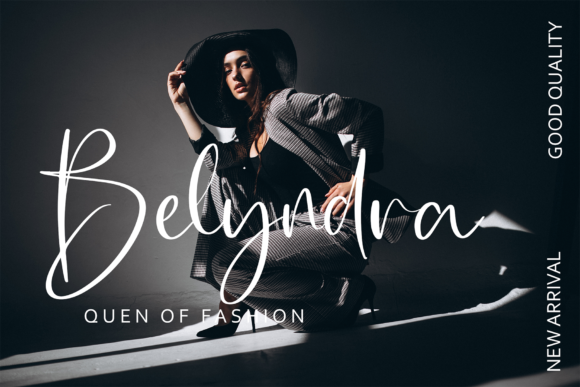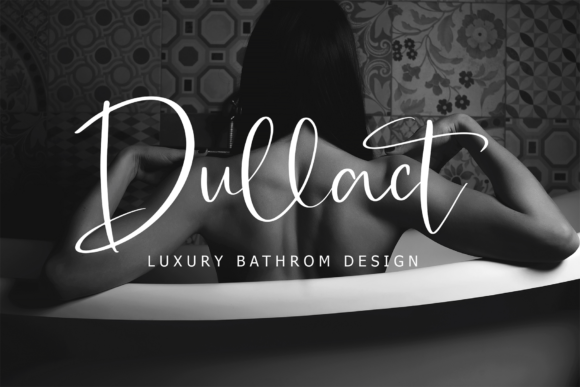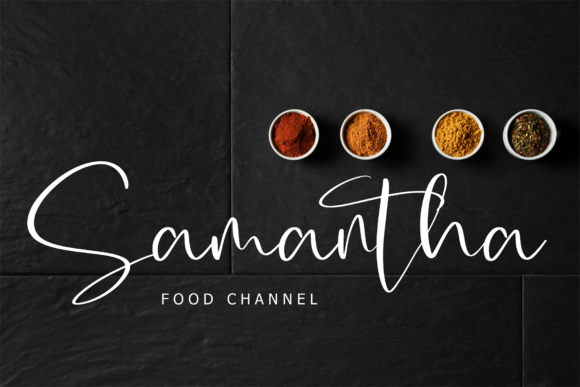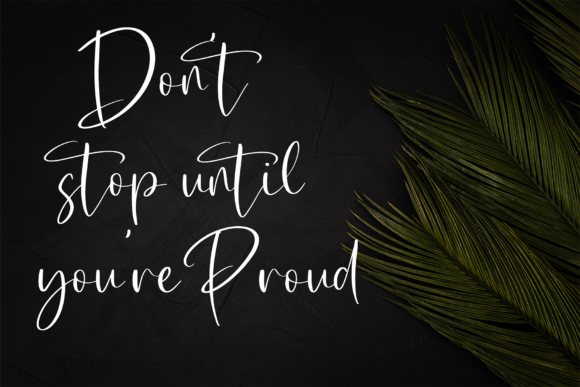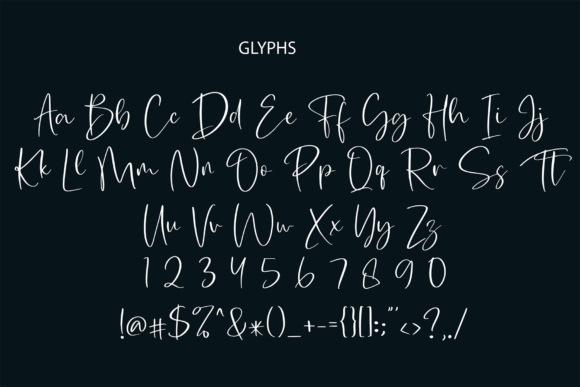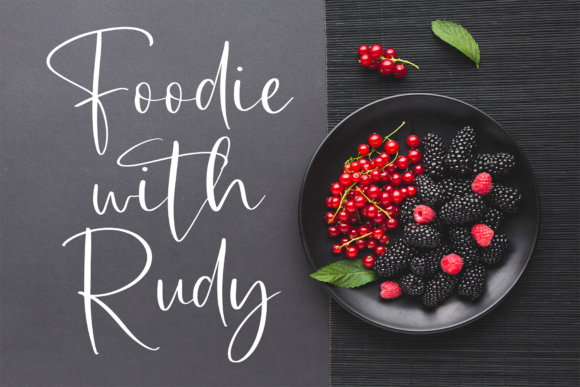
Introduction to Pellintas Font
As designers, we’ve all been there – staring at a blank canvas, trying to bring our creative vision to life. The perfect font can make all the difference. For me, it was the moment I stumbled upon the enchanting Pellintas Font. Its delicate, handwritten charm instantly captured my heart, and I knew I had to share it with the world.
Whether you’re crafting a wedding invitation, a heartfelt thank you card, or a stunning logo, Pellintas Font is the perfect design resource to elevate your creative project. Its high-quality design and transparent background make it a versatile and timeless choice for any design endeavor.
For designers, the Pellintas Font is a valuable addition to any toolkit. Its unique, handwritten style adds a touch of elegance and sophistication to any design, making it a go-to choice for those seeking a free download that’s both professional and eye-catching.
Key Features of Pellintas Font
- High-quality, modern design suitable for creative projects, including digital art, graphic design, and publishing.
- Unique, hand-drawn style with intricate details and textures, perfect for designers seeking a distinctive look.
- High-resolution design, suitable for print and digital applications, including posters, flyers, and social media graphics.
- Perfect for designers and artists looking for a high-quality, unique design resource to elevate their creative project.
Honest Review: Pellintas Font
I recently had the chance to work with the Pellintas Font on a creative project, and I must say I was impressed. As a design resource, it offers a high quality and versatile typeface that can be used in a variety of applications.
- ✨ High quality design: The Pellintas Font has a crisp and clean design that makes it perfect for both digital and print media.
- ✨ Transparent background: This feature allows for seamless integration with any design element, making it a great choice for creative projects.
- ⚠️ Limited font styles: While the Pellintas Font is a great addition to any design library, it’s worth noting that it only comes in a limited number of font styles.
- ⚠️ Not ideal for complex typography: Due to its simplicity, the Pellintas Font may not be the best choice for complex typography projects.
Overall, I’m quite impressed with the Pellintas Font and would definitely recommend it to fellow designers. Its high quality design, transparent background, and free download availability make it a valuable addition to any design library.
Pellintas Font
The Pellintas Font is a high-quality, versatile design resource ideal for various creative projects. Its transparent background makes it easy to layer and combine with other design elements.
Getting the Most Out of Pellintas Font
For optimal results, use Pellintas Font in conjunction with other design elements, such as images and graphics. Experiment with different font sizes, styles, and colors to create a unique and engaging design.
Pellintas Font is ideal for various creative projects, including logos, business cards, brochures, and website designs. Its high-quality design and transparent background make it a versatile resource for designers and non-designers alike.